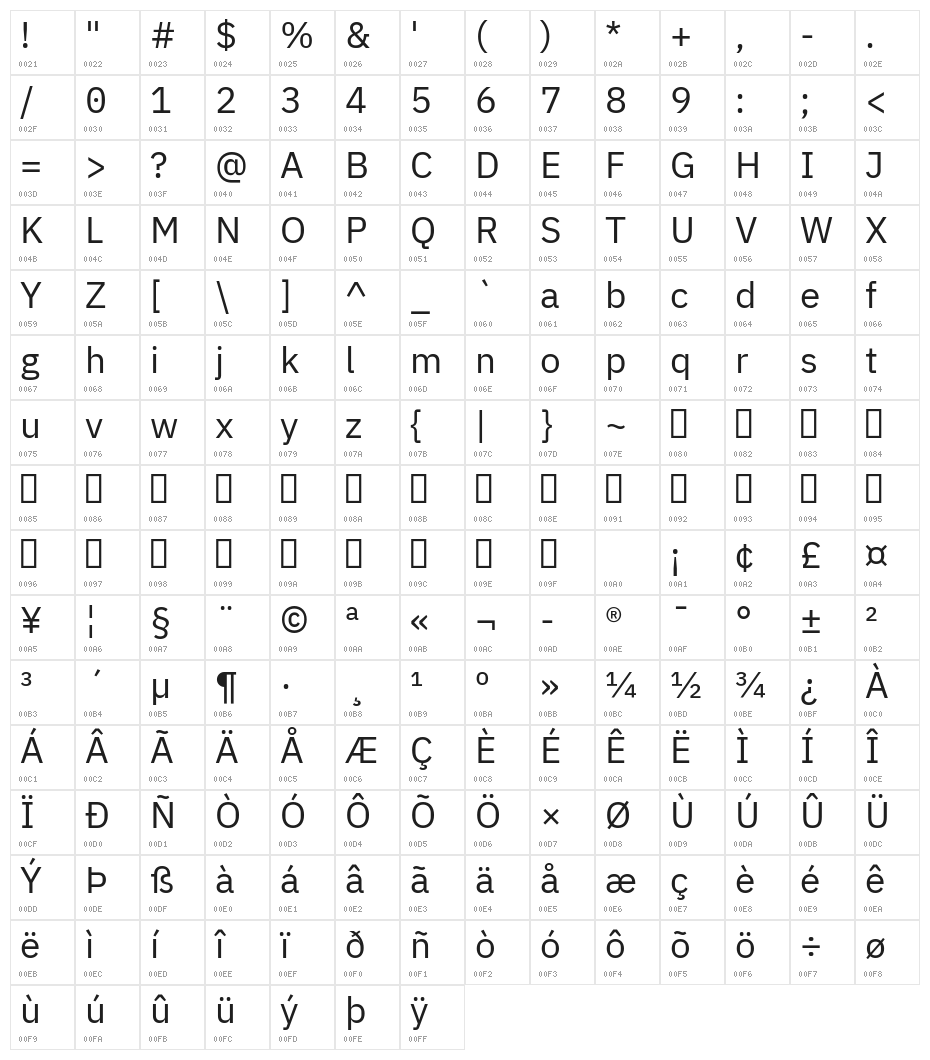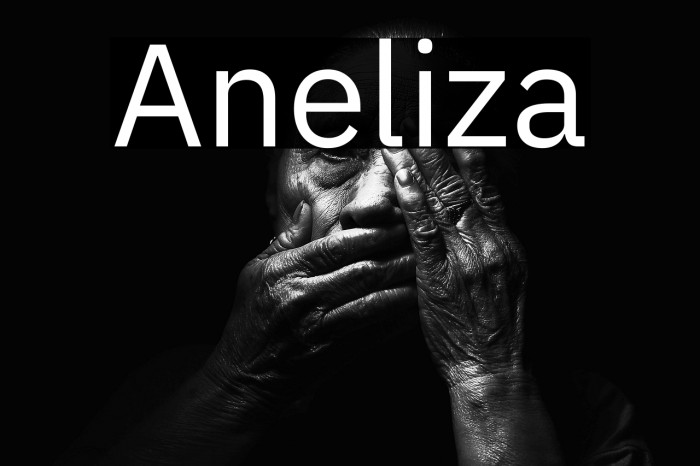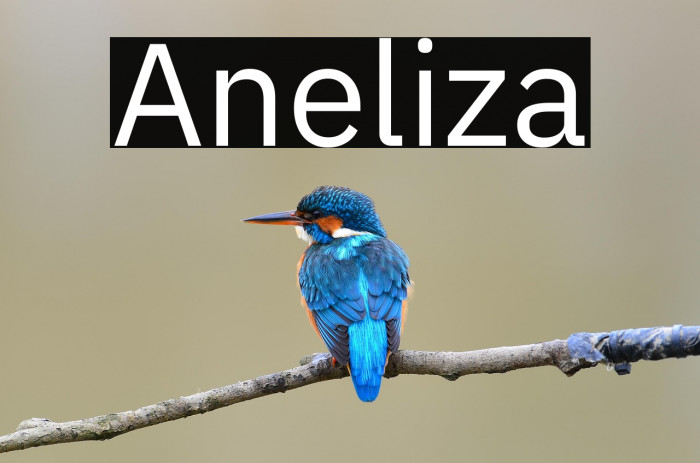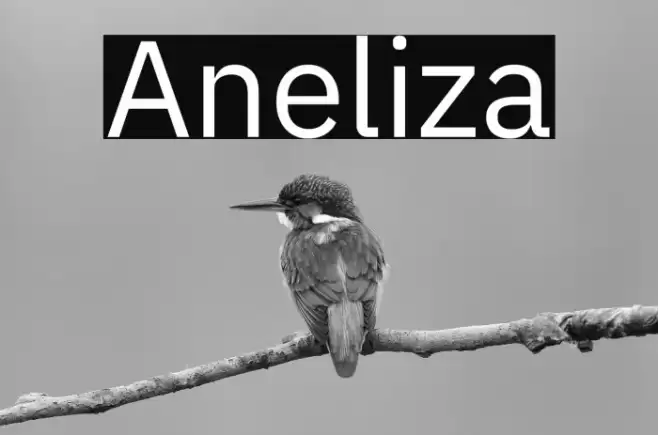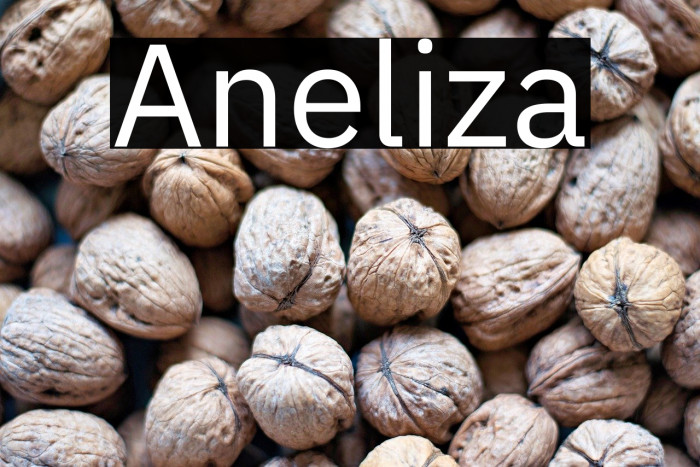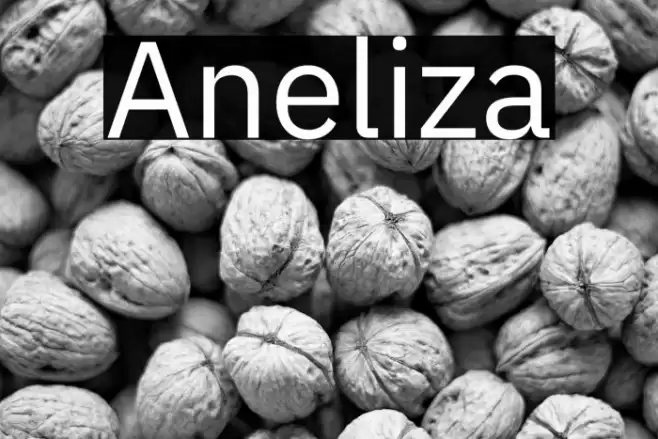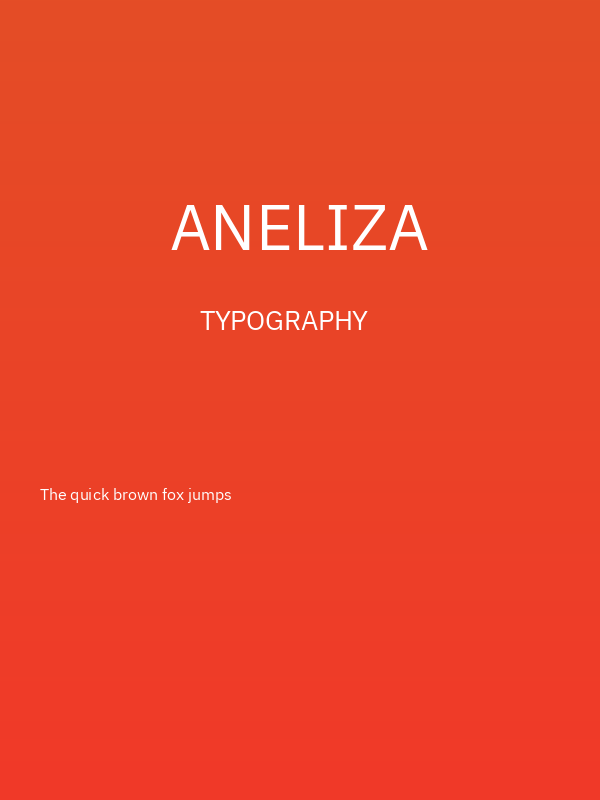
Aneliza Font
Aneliza Description
This font features a clean and modern sans-serif design with a focus on readability and simplicity. The characters are well-balanced, with uniform stroke widths that provide a harmonious appearance. The uppercase letters are bold and assertive, while the lowercase letters maintain a friendly and approachable feel. The numerals are clear and distinct, making them suitable for various applications. Special characters are included, ensuring versatility in usage. The overall design is minimalistic, making it ideal for contemporary projects.
| Proposed Projects | Ideal for web design, corporate branding, user interfaces, and editorial content. |